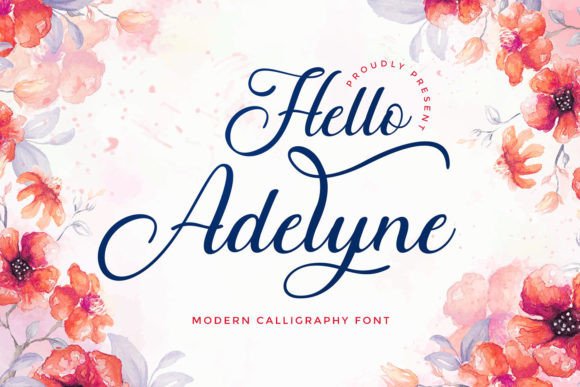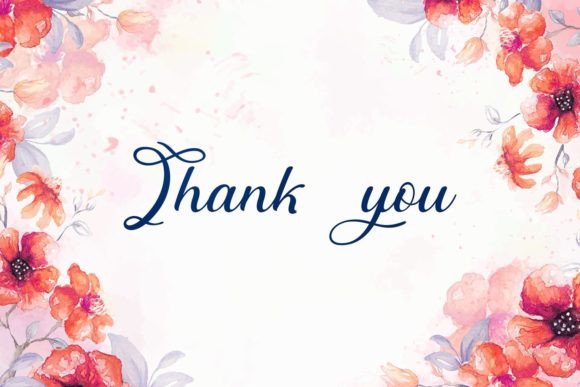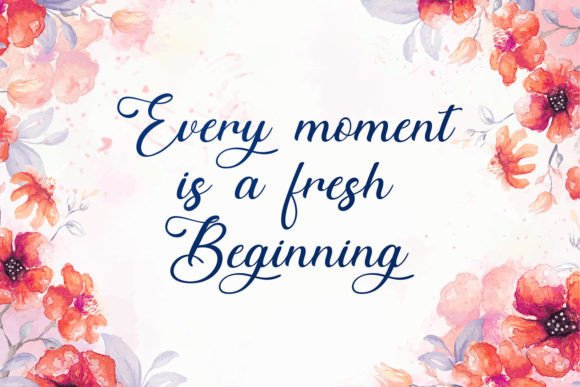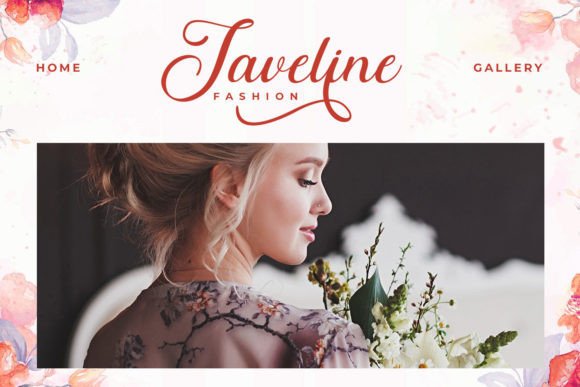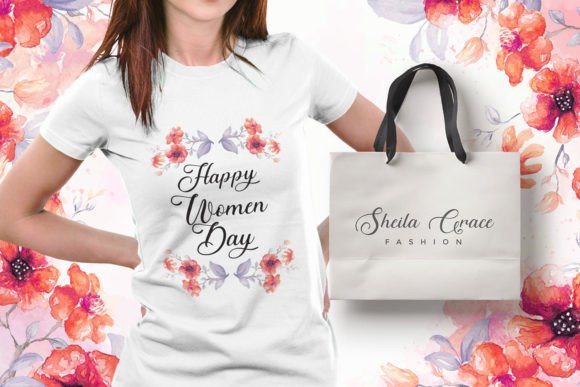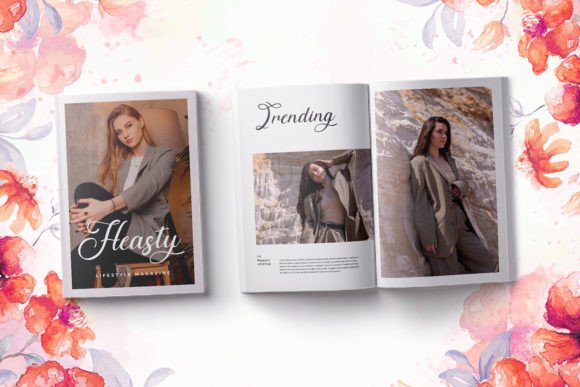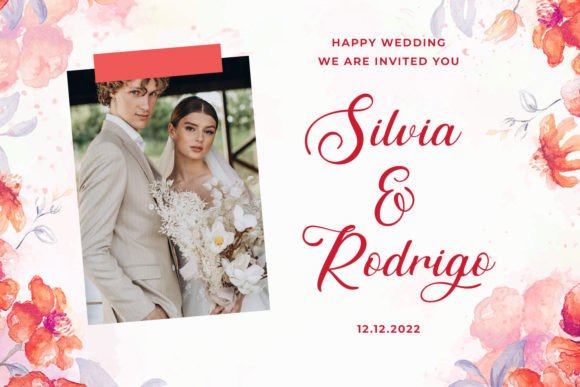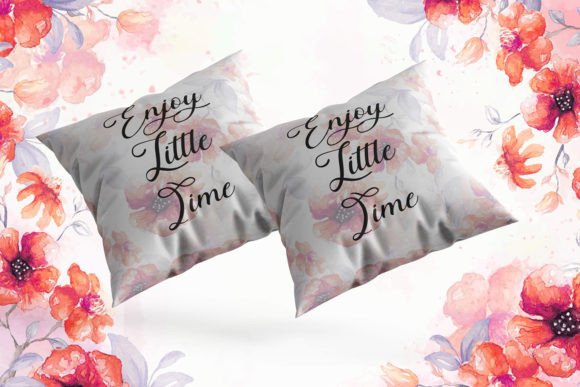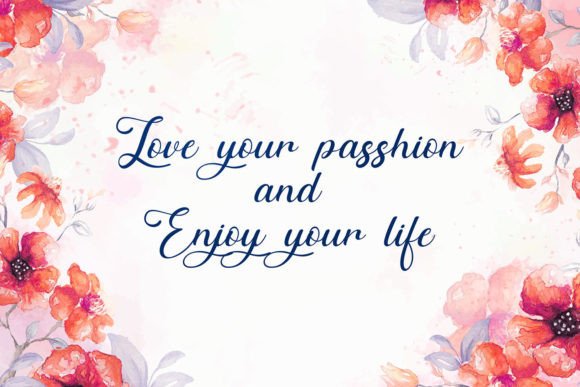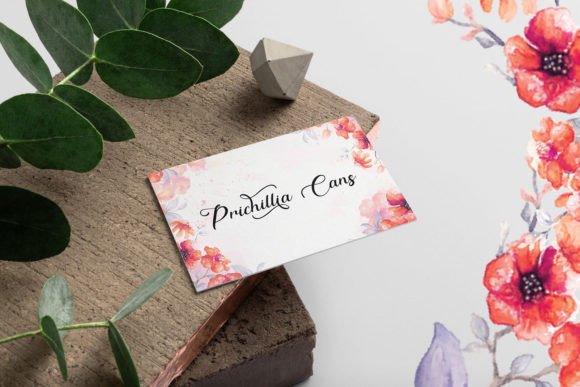
Hello Adelyne Font
Add Feminine Elegance with Hello Adelyne Font
The Hello Adelyne font is a lovely script font with a professional and feminine feel. Its modern, catchy, and easy-to-use style makes it ideal for a wide range of creative projects. Whether you’re designing watermarks, wedding invitations, signatures, logos, business cards, or other branding materials, Hello Adelyne adds sophistication and charm to your work.
Perfect for Watermarks, Weddings, and Branding
The Hello Adelyne font shines across numerous design applications including photography watermarks, personalized wedding stationery, signature logos, business branding, and social media graphics. Its flowing strokes and delicate design add a polished and memorable touch to any project.
PUA Encoded for Easy Access to Glyphs and Swashes
This font is PUA encoded, which means you can easily access all glyphs and swashes without needing additional software. This feature gives you creative freedom to customize your designs with beautiful flourishes and stylistic alternates.
Despite its decorative and feminine style, the Hello Adelyne font maintains excellent readability across different sizes. Whether used for logos, quotes, or smaller text elements, it balances elegance with clarity, making it a versatile choice for many projects.
Make Your Designs Shine with Feminine Charm